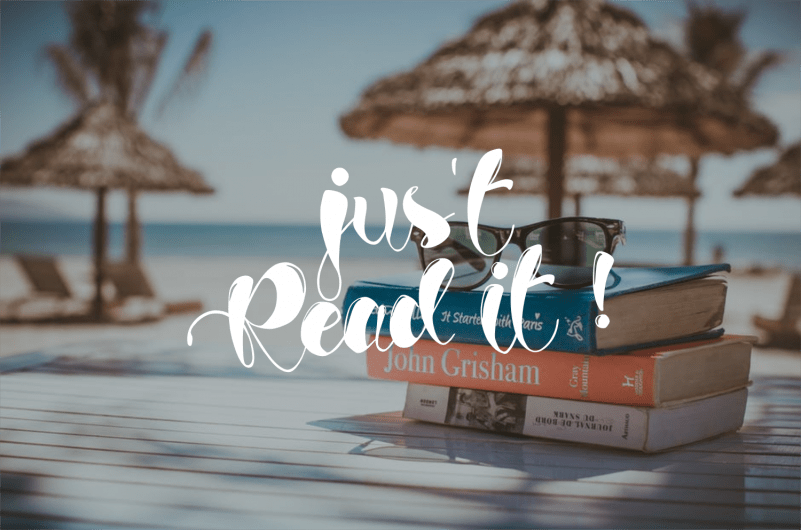
Ghost Calligraphy Font
Hey Hey Hey! It’s us again. Meet our new family : Ghost Calligraphy Font! Dont be scared, it’s a Script Calligraphy Duo. Got 2 styles: inline and regular. It’s bold, beauty yet clearly unique. Made by HAND from sketch. This sophisticated handwritten calligraphy font will be awesome for any projects that need handwriting that looks elegant, natural, stylish, classy, strong and beautiful. Will be perfect for branding, logo, photography, business card ,signature, flyer, poster /poster, presentation, wedding/birthday/shower invitation etc.